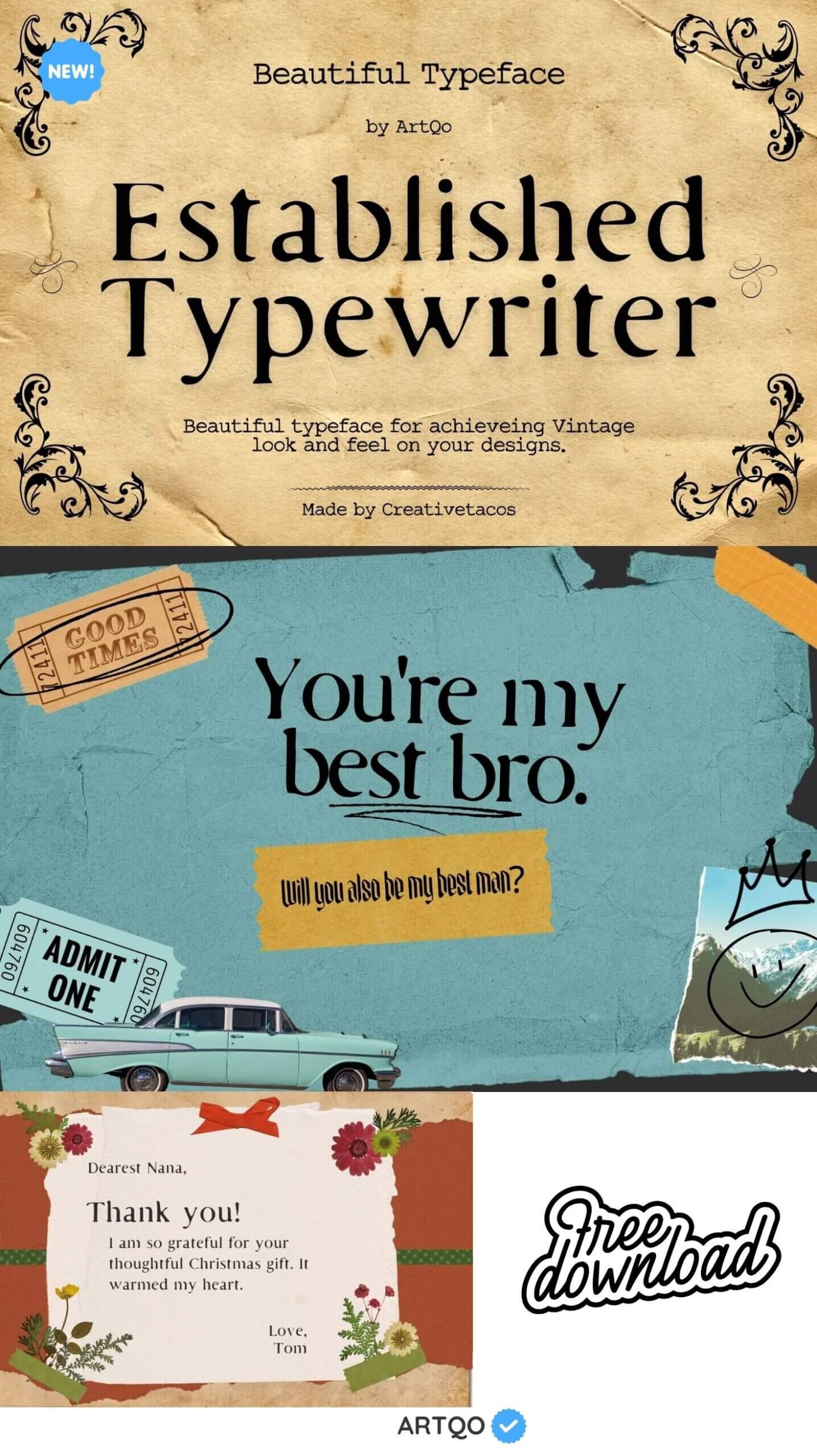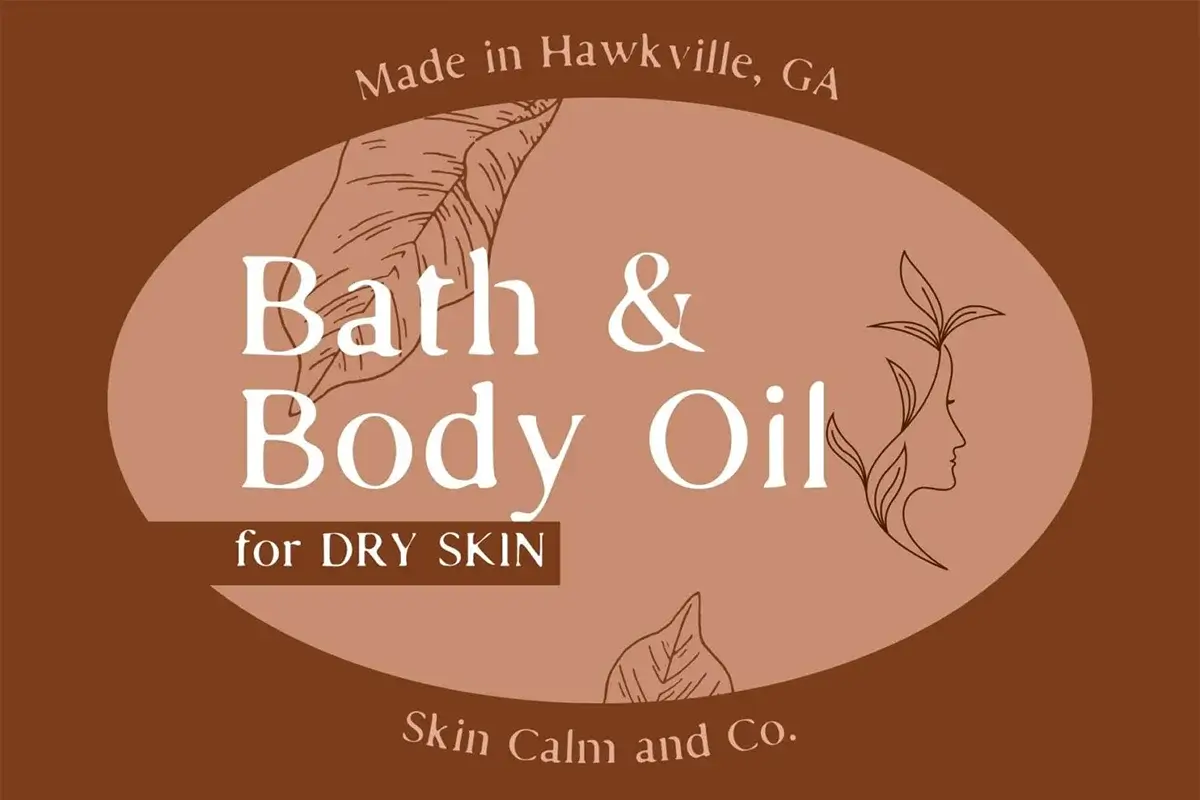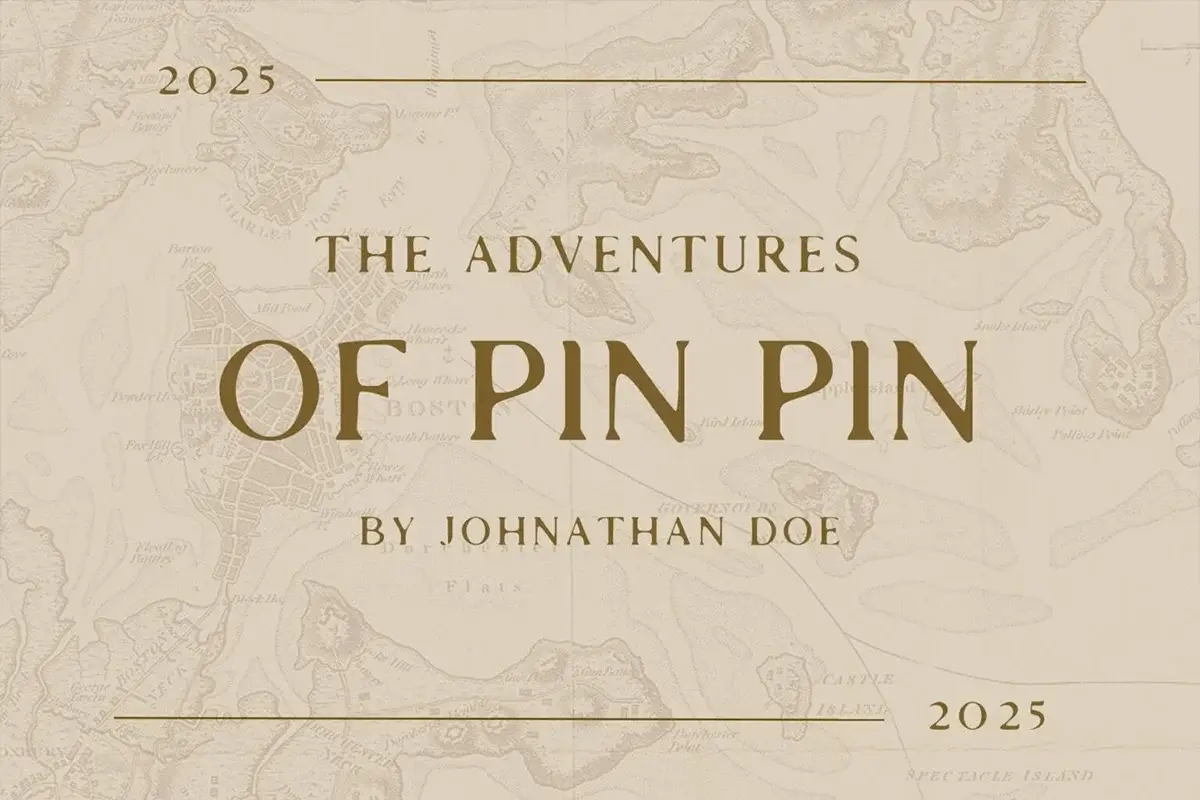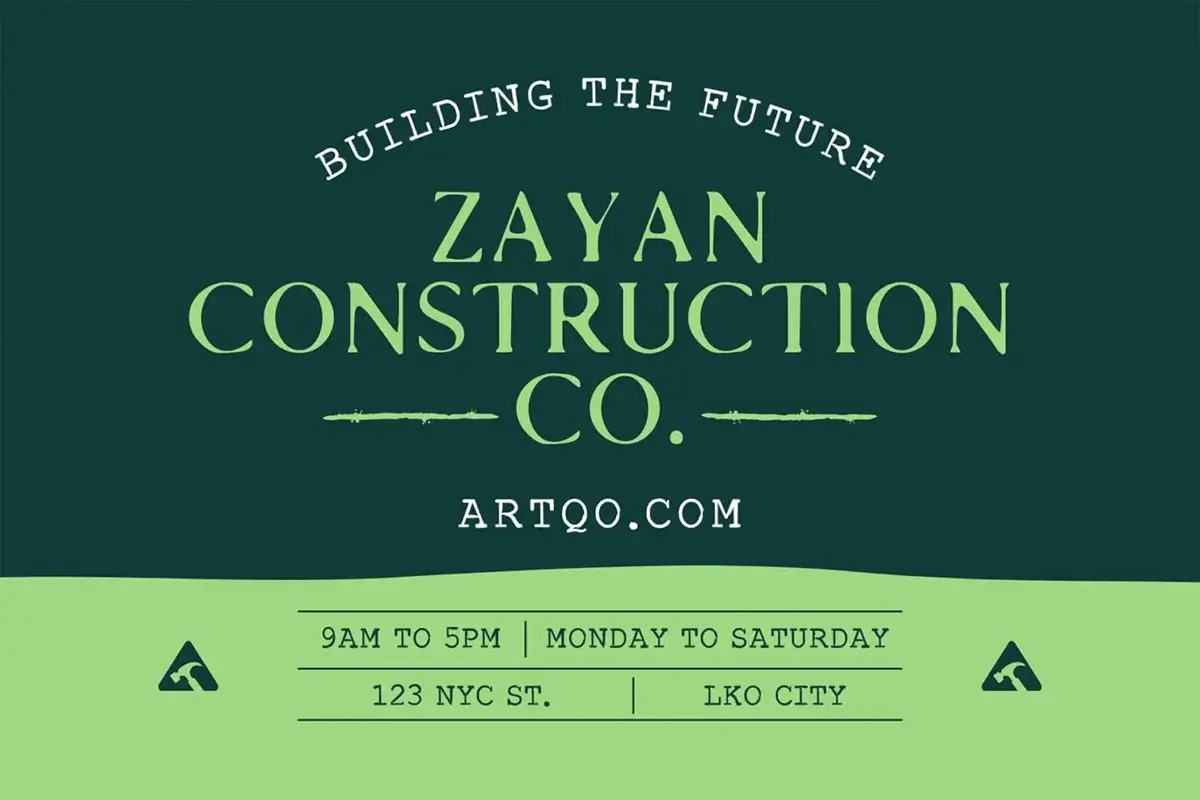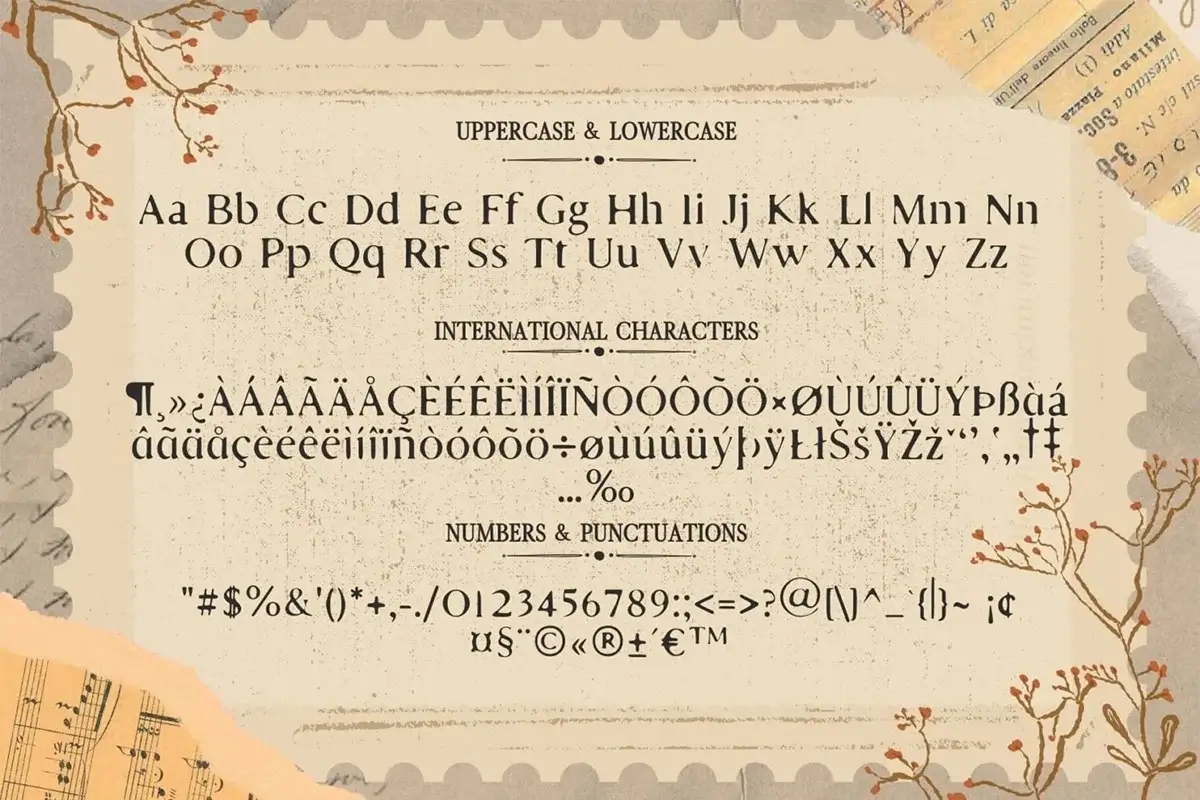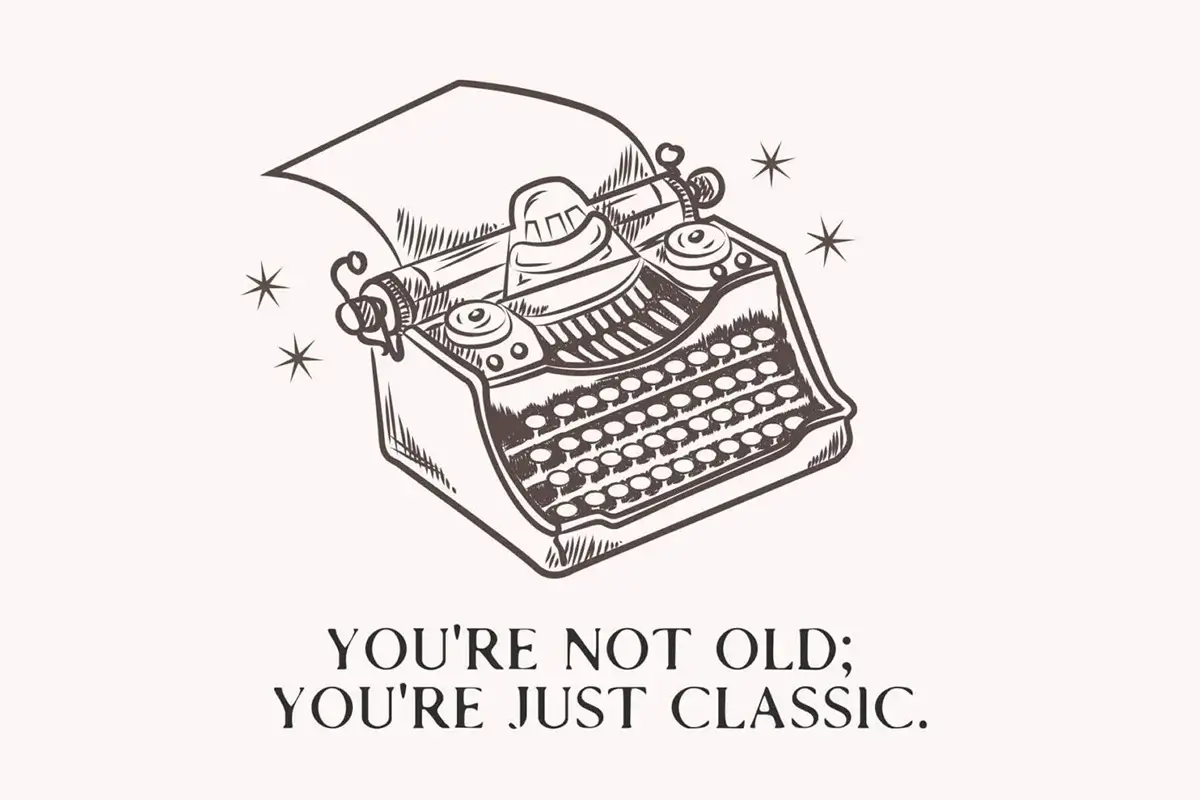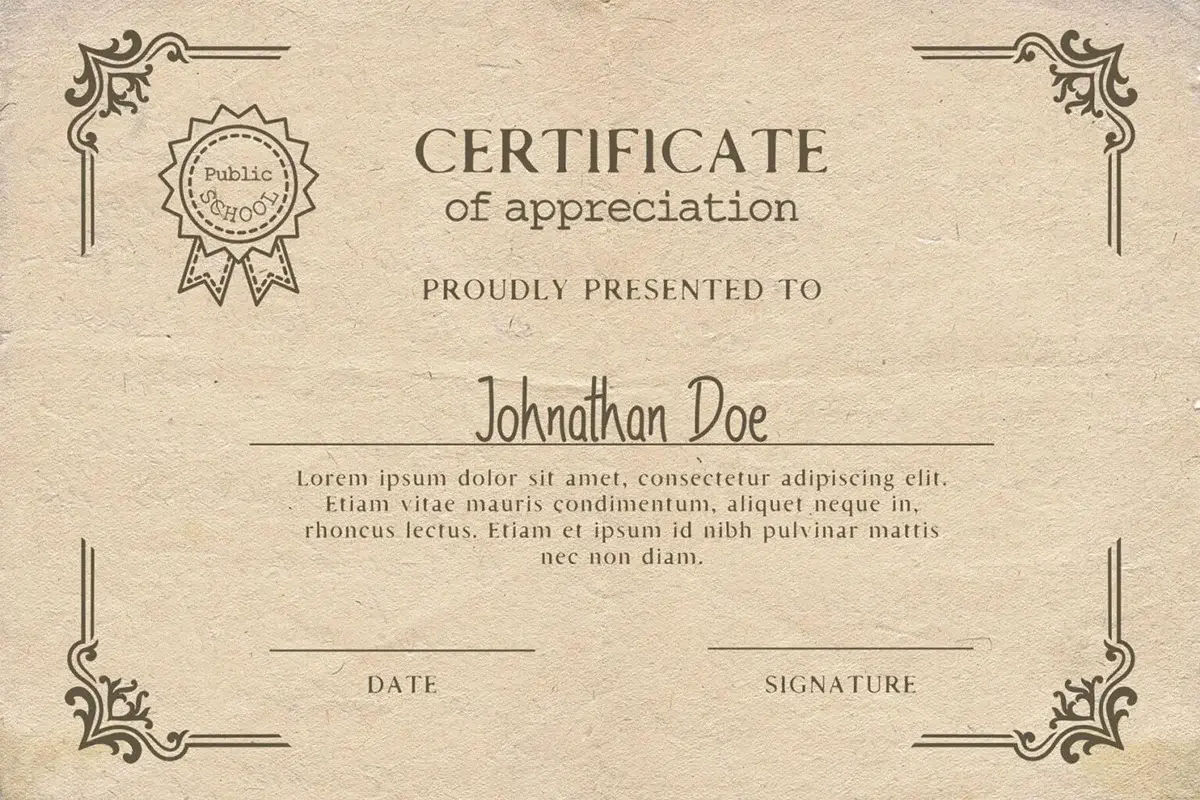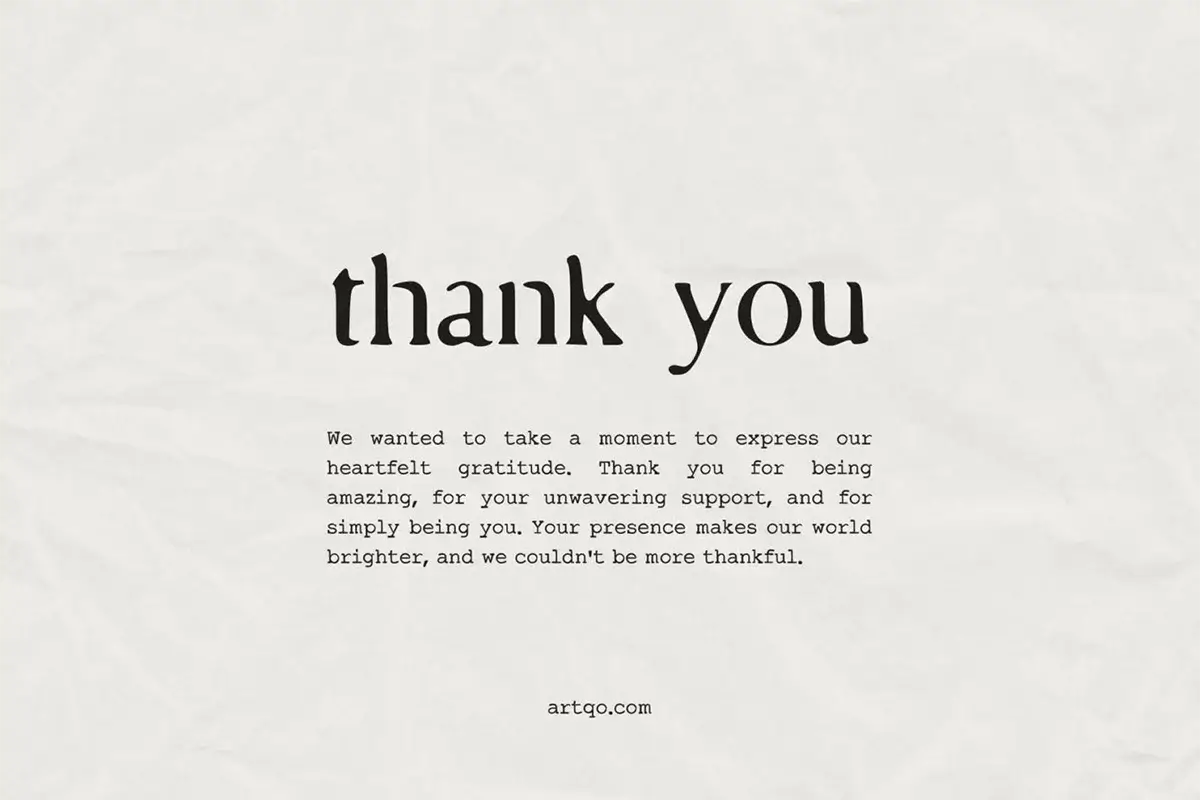
Established Typewriter Font
Introduction: The Established Typewriter font brings the classic charm of typewriters to your designs. This font has a vintage look that makes it ideal for giving your projects a nostalgic and old-fashioned feeling. Whether you’re working on invitations, branding, or simply want to add a touch of history to your work, this font is a great choice.
Designed for readability and style, the Established font has a unique character. It offers smooth curves and a bold presence that can fit in both formal and creative settings. This typeface is perfect for those who want a mix of tradition and modern flair in their designs. With its international characters and wide range of glyphs, Established Typewriter provides versatility for different languages and creative ideas. Whether you are creating business cards, certificates, or even book covers, this font will help your designs stand out.
Use Case:
Greeting Cards: Provides a personal, hand-typed feel to your heartfelt messages.
Invitations: Perfect for sending event invites, creating a formal yet nostalgic vibe.
Certificates: A professional choice for appreciation or awards.
Branding: Suits businesses aiming for a classic, trustworthy appearance.
Book Covers: Ideal for historical, adventure, or fantasy genres.
Established font is perfect for those who want to keep things simple but still stand out with a personal, handmade look.